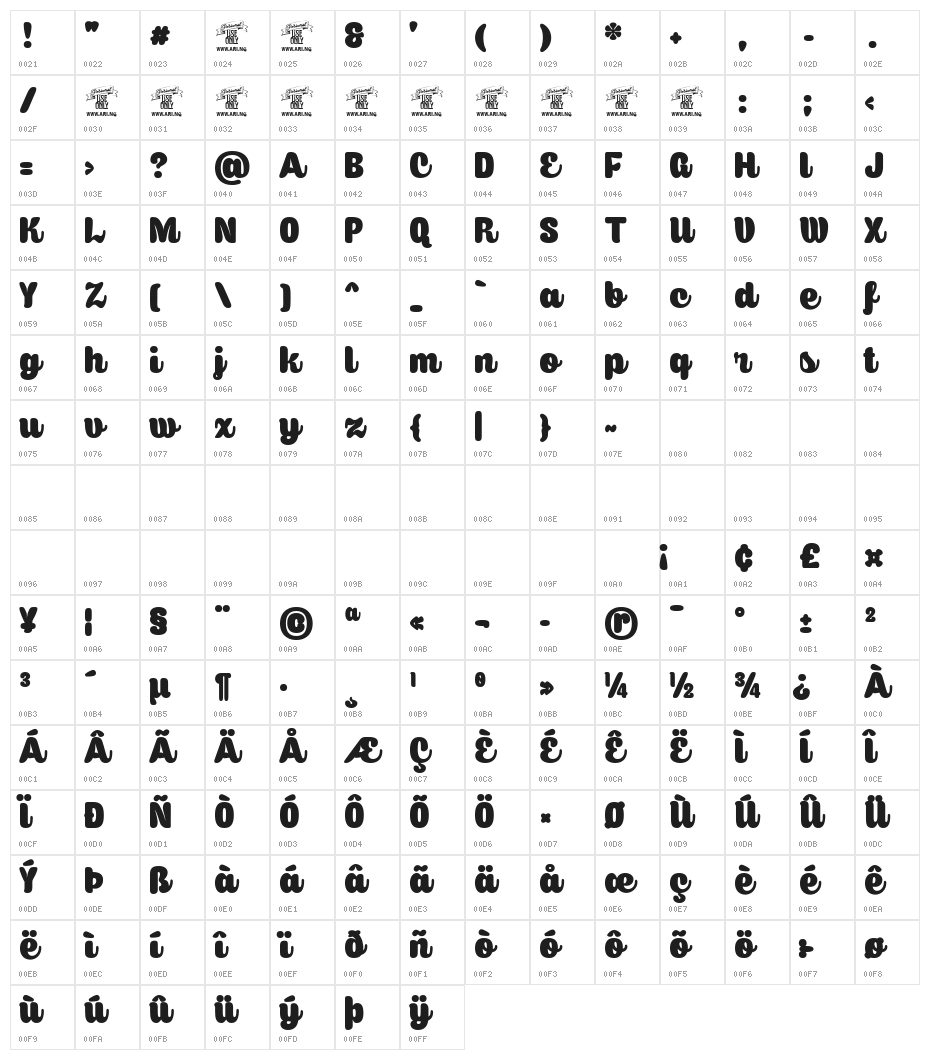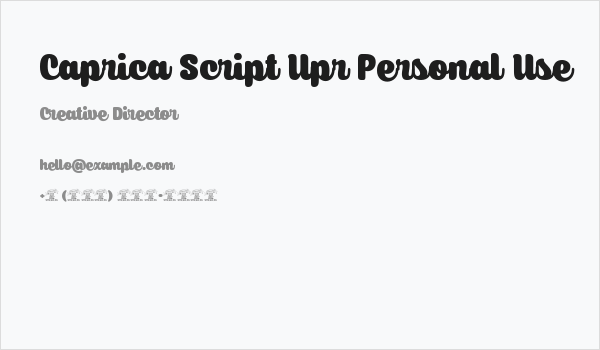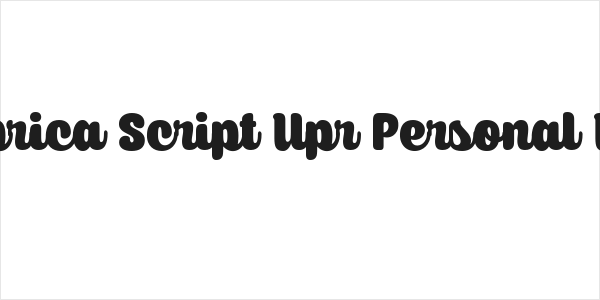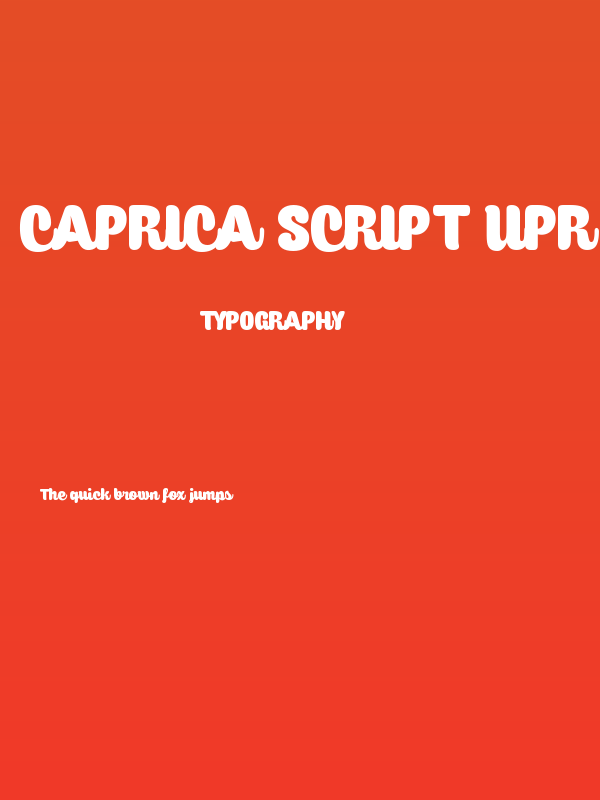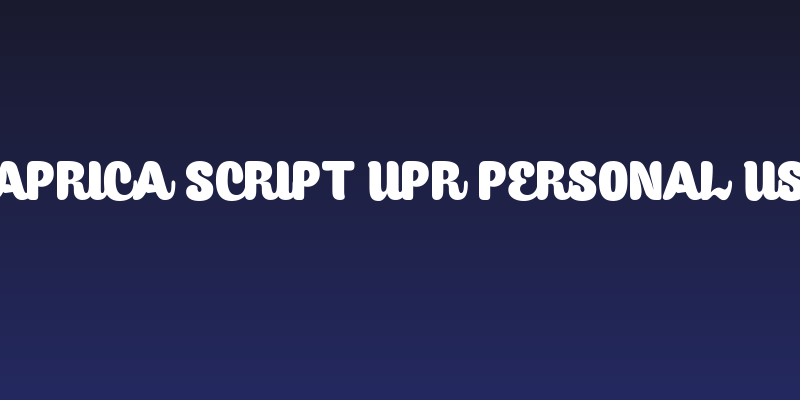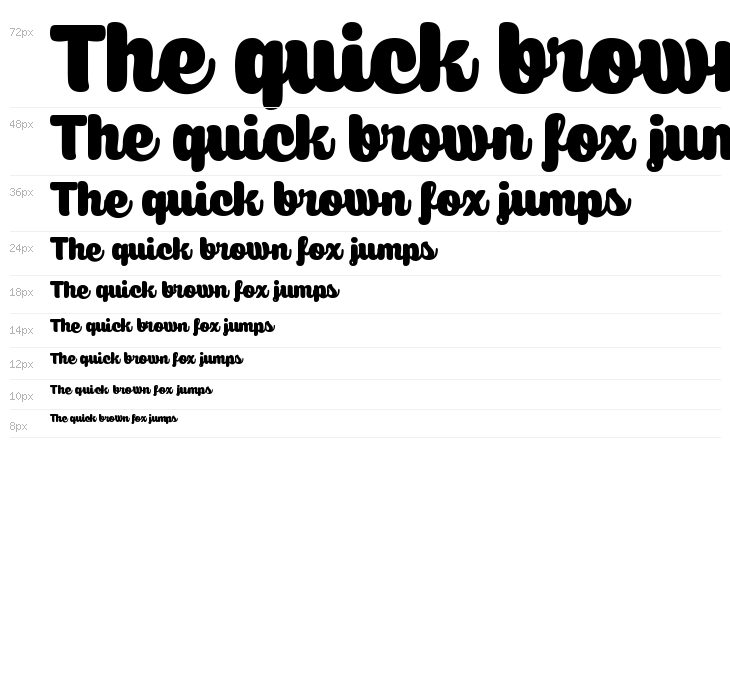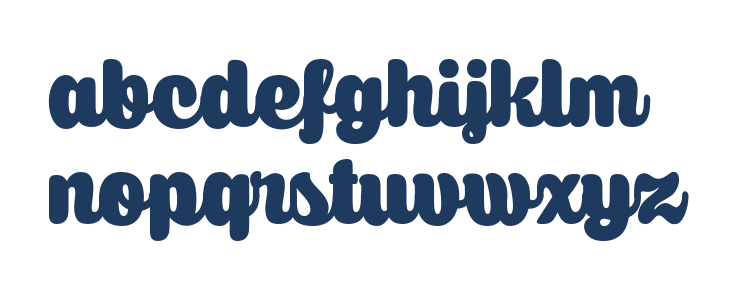
Caprica Script Upr Personal Use Font
Caprica Script Upr Personal Use Description
This font features a bold and playful script style with thick, rounded strokes that convey a sense of fun and creativity. The uppercase letters are bold and dynamic, with a slight slant that adds to their lively appearance. The lowercase letters maintain the same playful aesthetic, with smooth curves and a consistent stroke width. The numbers and special characters are designed to match the overall style, ensuring a cohesive look across all text elements. This font's boldness and unique character make it stand out, making it ideal for projects that require a touch of whimsy and personality.
| Proposed Projects | Ideal for greeting cards, playful branding, children's books, and creative posters. |